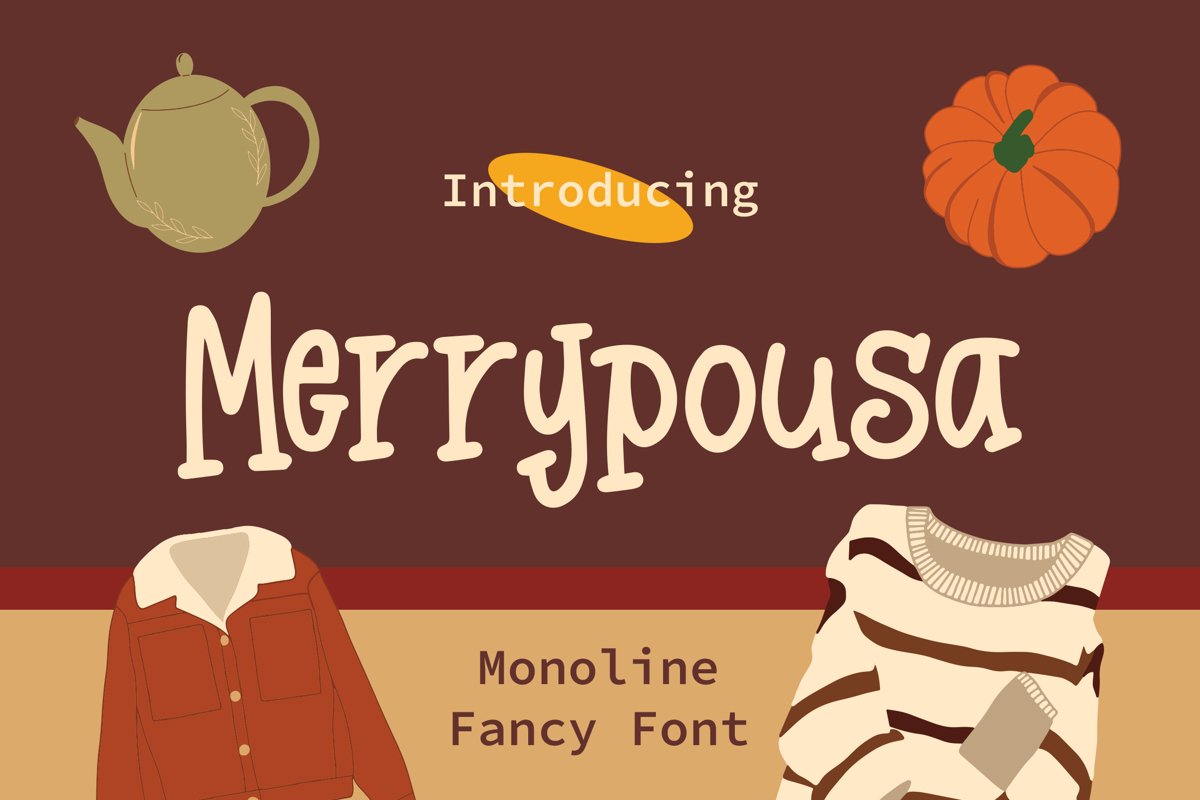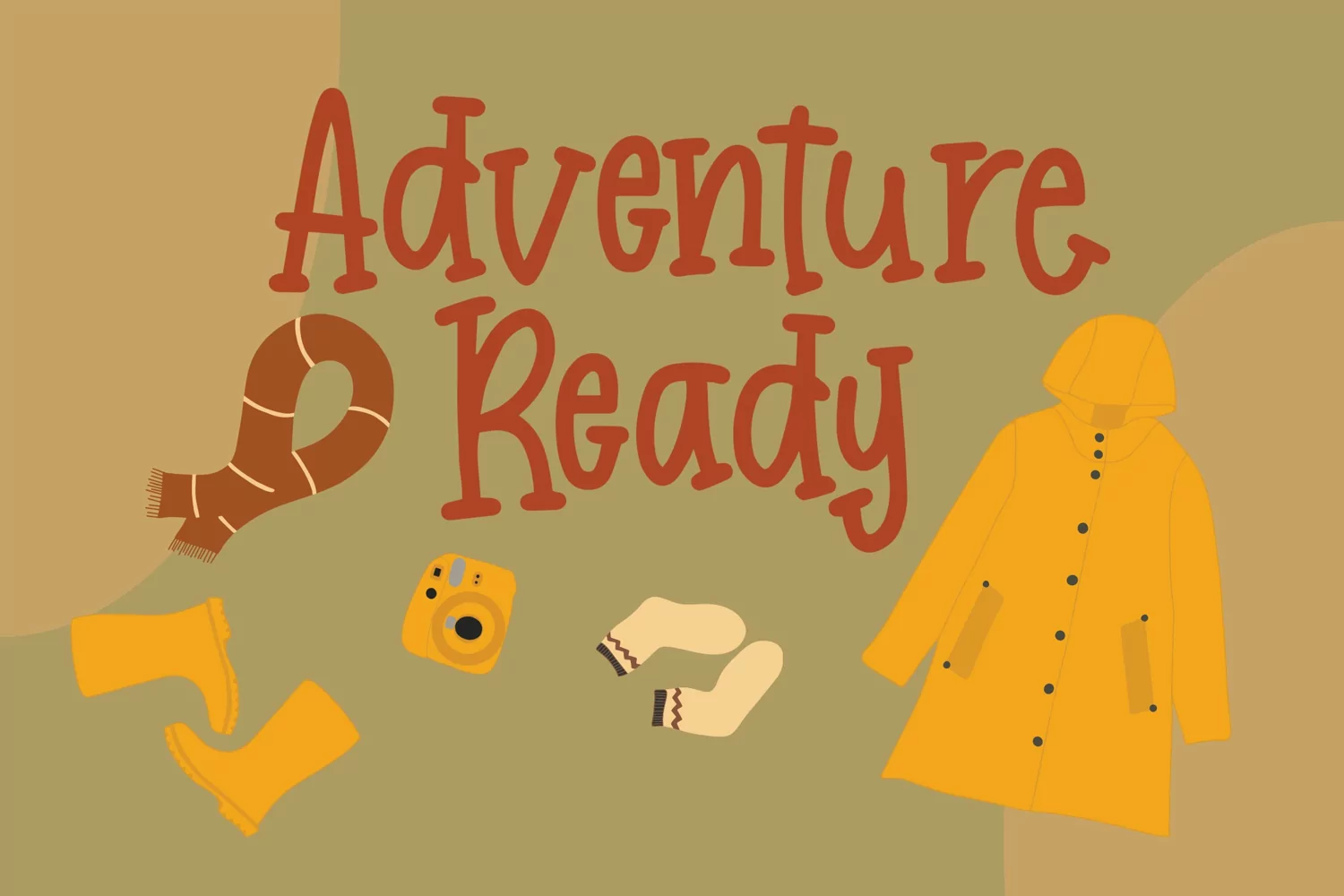
Merrypousa - Monoline Fancy Font that contain lowercase, uppercase, symbol, and also support multi language. There’s a lot ligatures in this font. This Font also comes with ligatures, alternates and many more. this font suitable for fashion, branding, catalog and other design what you want.
Merrypousa